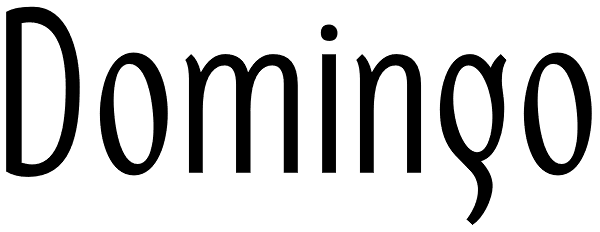
Domingo
The smooth curves and big wondrous eyes of the Tango dancer in all her charm. Domingo expresses the sensual mysteries of South America like no other typeface ever could. Fragile yet firm, loving yet proud, Domingo conveys an eternal sense of care...
Domingo